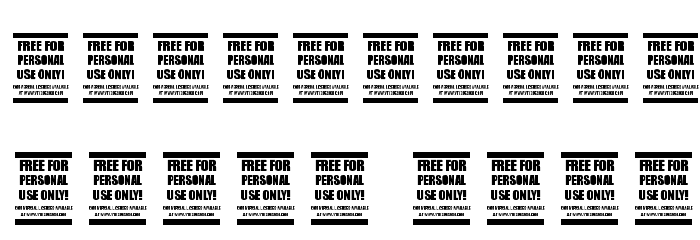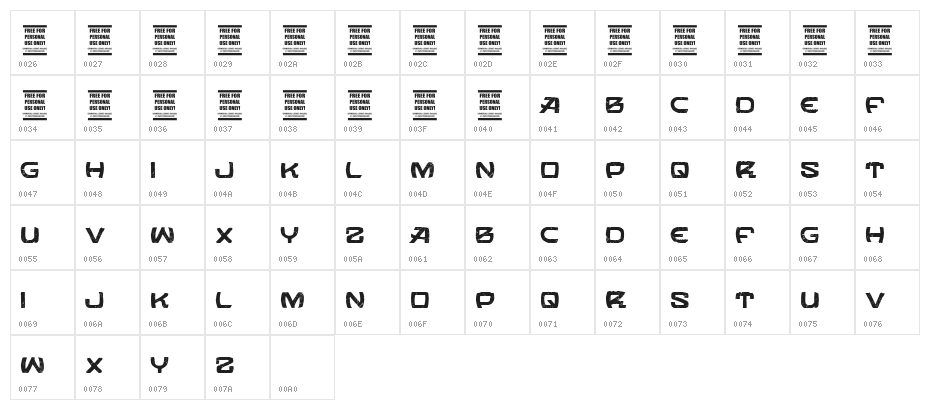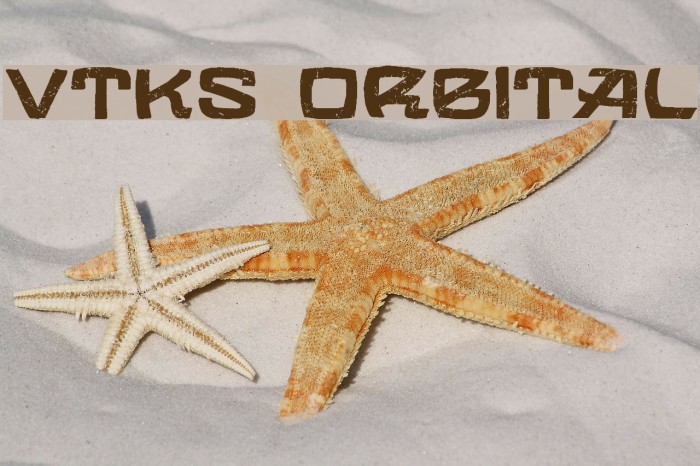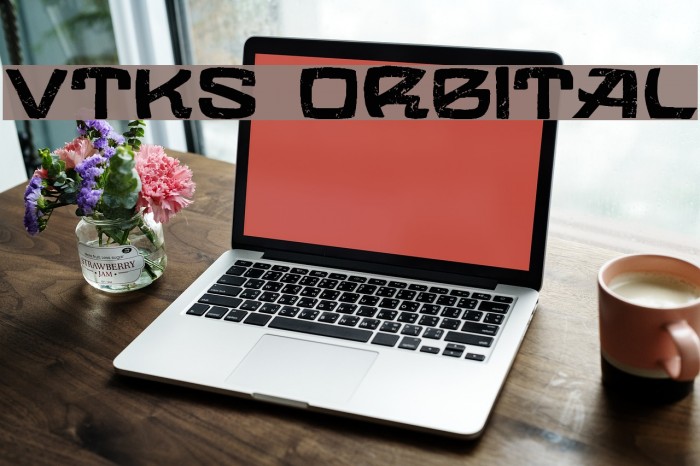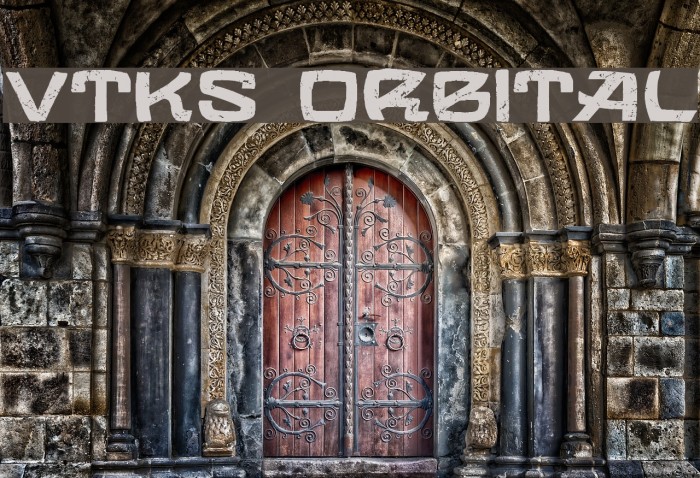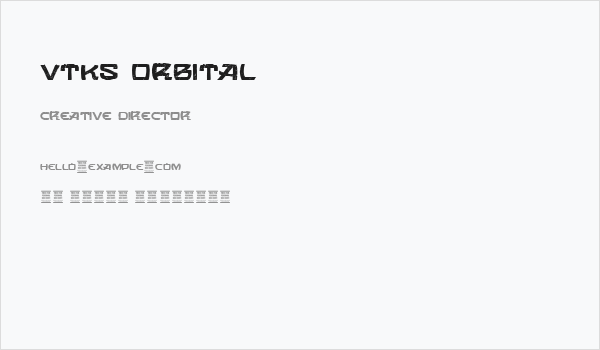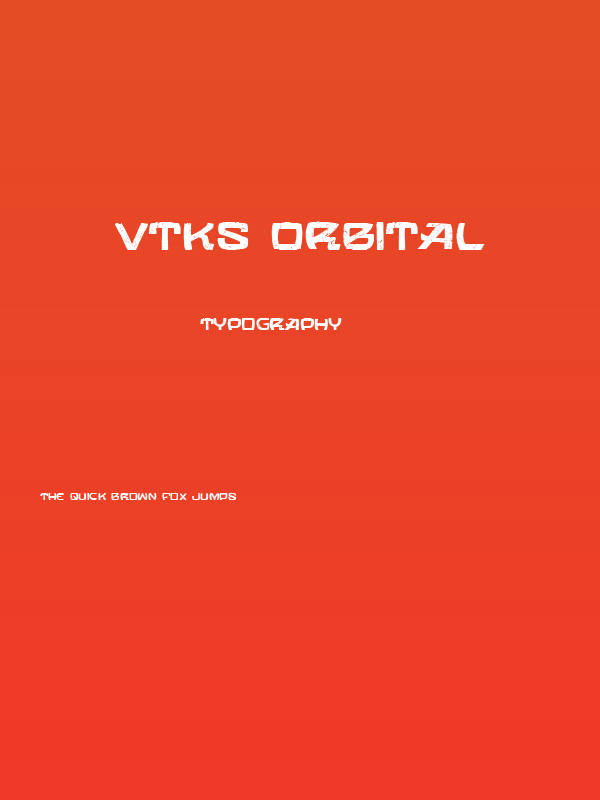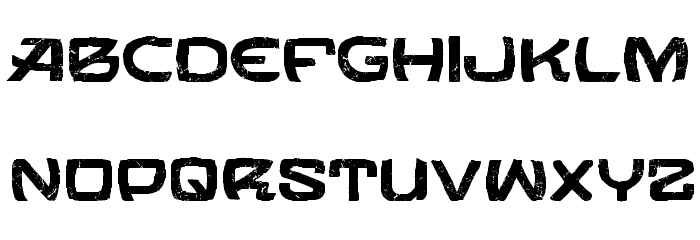
VTKS ORBITAL Font
VTKS ORBITAL Description
This font features a bold, distressed style with a futuristic and industrial feel. The characters are uppercase only, with a textured, worn appearance that suggests a rugged, mechanical aesthetic. The strokes are thick and uneven, giving each letter a unique, handcrafted look. The overall design is reminiscent of stenciled lettering, often used in industrial or military contexts. The font's boldness and distinctive style make it ideal for projects that require a strong visual impact.
| Overall Style | Futuristic, Industrial, Distressed |
| Proposed Projects | Ideal for posters, album covers, video game graphics, and branding that requires a strong, industrial aesthetic. |